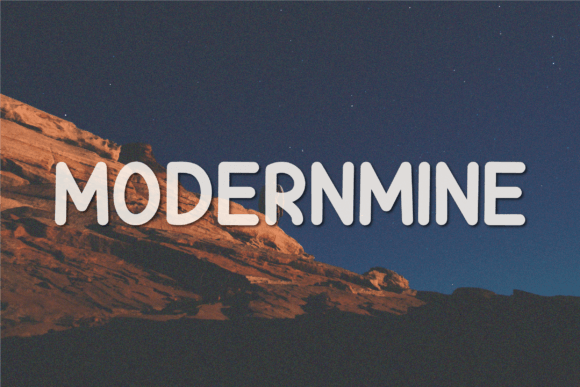
Prepare yourself to be mesmerized by the whimsical Modernmine font, a captivating creation from the imaginative minds at Becraft. Experience the boundless possibilities as you immerse yourself in the world of this extraordinary sans serif typeface.
Modernmine is more than just a font; it's an open invitation to let your creativity soar. With its captivating all-caps design, this font will transform your words into captivating works of art. Whether you're a seasoned pro in the realm of digital design or just starting your artistic journey, Modernmine is the perfect companion to guide you through every step.
Imagine the allure of crafting breathtaking greeting cards that will leave a lasting impression on your loved ones. Envision the impact of vibrant presentations that will captivate your audience and ignite their imaginations. Modernmine possesses the innate ability to elevate ordinary designs into extraordinary masterpieces, effortlessly adding a touch of elegance and sophistication to any project.
This versatile font is an indispensable tool for any creative endeavor. Its graceful curves and playful demeanor make it the ideal choice for adding a touch of whimsy to your digital creations. Whether you're designing eye-catching social media posts, crafting compelling marketing materials, or simply seeking a font that will make your words dance off the page, Modernmine is the answer.
Dive into the world of Modernmine and unlock a treasure trove of creative possibilities. This extraordinary font is your passport to a realm where imagination knows no bounds, where every word you write has the power to captivate and inspire. Embrace the magic of Modernmine today and let your creativity soar to new heights.